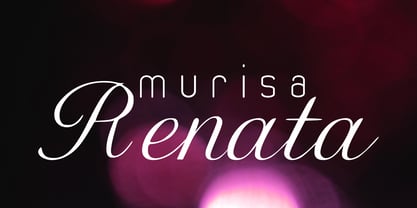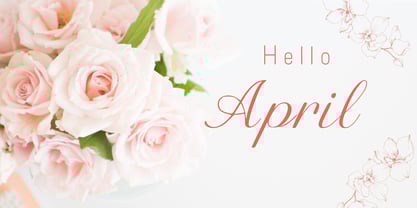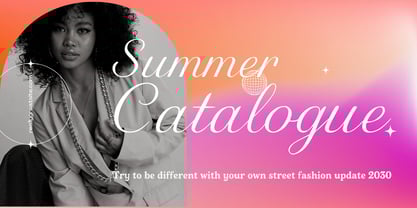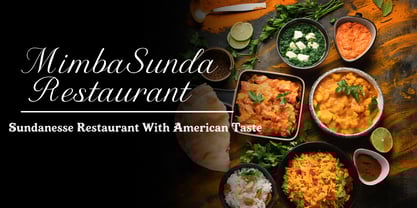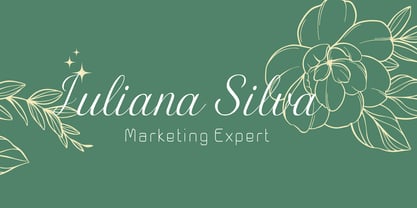
Murisa Renata
The Murisa Renata Font Family was designed by Lili Sadili and published by Murisa Studio. Murisa Renata contains 1 styles. More about this family